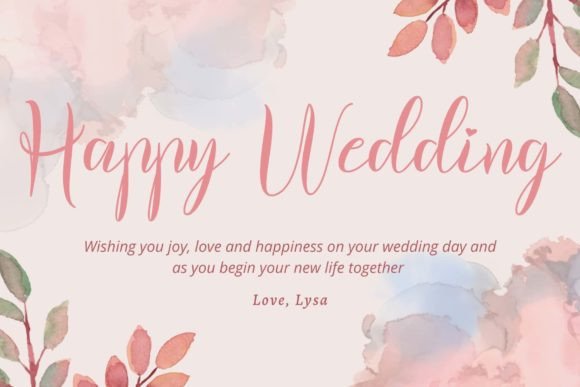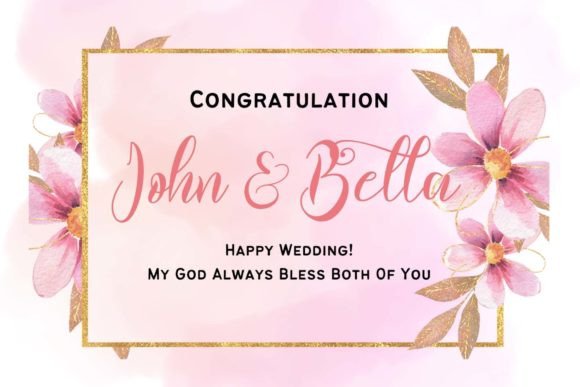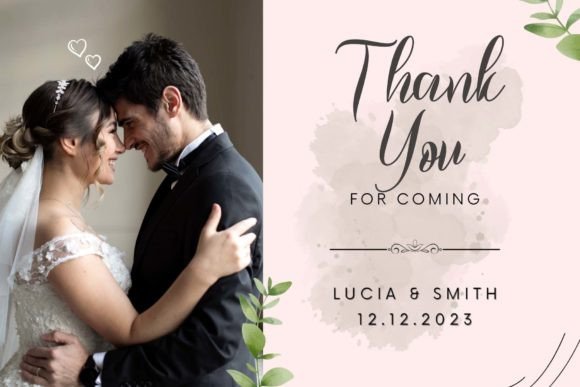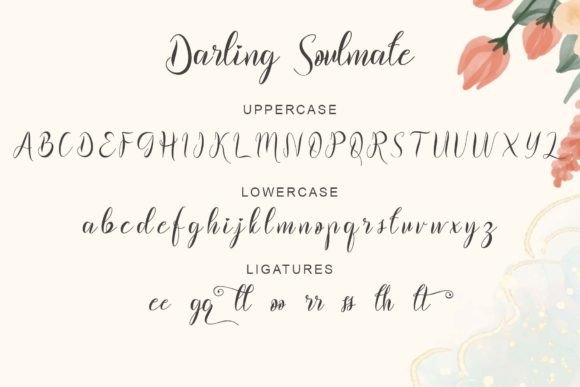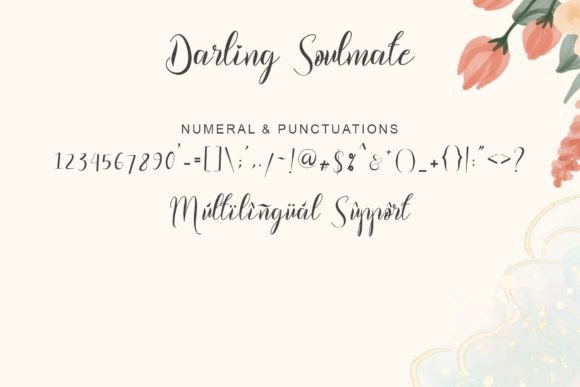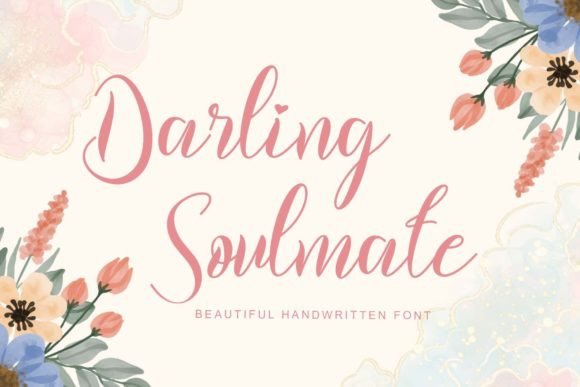
Discover the Charm of Darling Soulmate Font: A Beautiful Handwritten Font for Your Creative Projects
Are you a designer, crafty person, or someone who loves creating beautiful visual content? Look no further! We’re excited to introduce you to the “Darling Soulmate” font, a stunning handwritten font that will add a touch of elegance and charm to your projects. In this article, we’ll dive into the features, benefits, and uses of this lovely font, and explore how it can elevate your designs.
What is Darling Soulmate Font?
“Darling Soulmate” is a very beautiful and lovely handwritten font, carefully crafted to bring a personal touch to your creative projects. This font is equipped with a wide range of characters, including uppercase, lowercase, numerals, punctuation, ligatures, and multilingual support. Its versatility makes it an excellent choice for various applications, from weddings and engagements to logos, banners, posters, prints, branding, stickers, and even Christmas-themed projects.
Key Features of Darling Soulmate Font
- Handwritten script: Darling Soulmate boasts a beautiful, handwritten script that exudes warmth and personality.
- Comprehensive character set: The font includes uppercase and lowercase letters, numerals, punctuation marks, ligatures, and multilingual support.
- Versatile: Suitable for a wide range of projects, including weddings, logos, branding, and more.
- Elegant and charming: Adds a touch of sophistication and whimsy to your designs.
Uses of Darling Soulmate Font
Darling Soulmate Font is perfect for:
- Weddings and engagements: Create beautiful wedding invitations, save-the-date cards, and other wedding-related materials.
- Logos and branding: Add a personal touch to your brand’s identity with a unique and memorable logo.
- Banners and posters: Create eye-catching banners and posters for events, promotions, or advertising.
- Prints and stickers: Design beautiful prints and stickers for various occasions, such as Christmas, birthdays, or holidays.
- Multilingual support: Use the font for projects that require support for multiple languages.
Benefits of Using Darling Soulmate Font
- Easy to read: The font’s clear and elegant script ensures that your message is conveyed effectively.
- Use for headlines and titles: Take advantage of the font’s elegant script to create stunning headlines and titles.